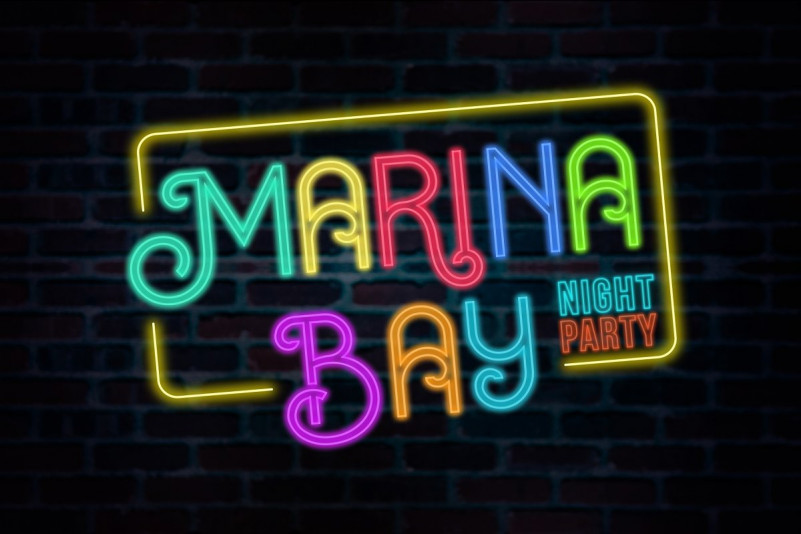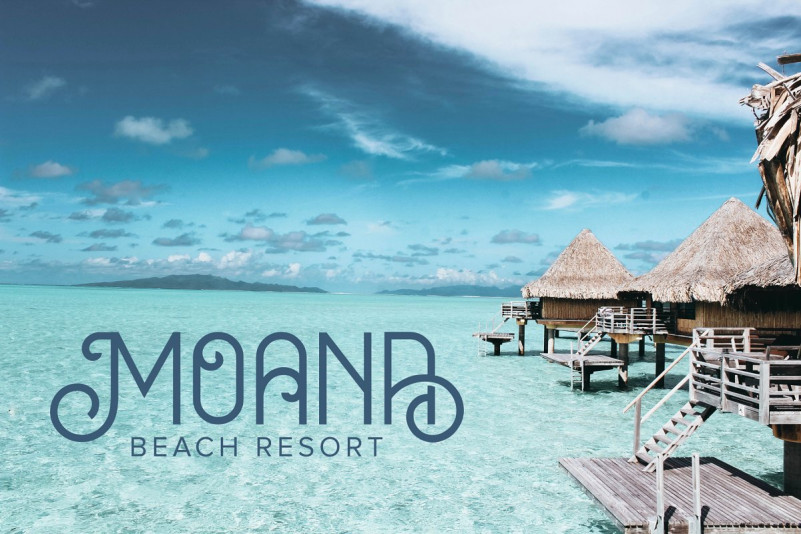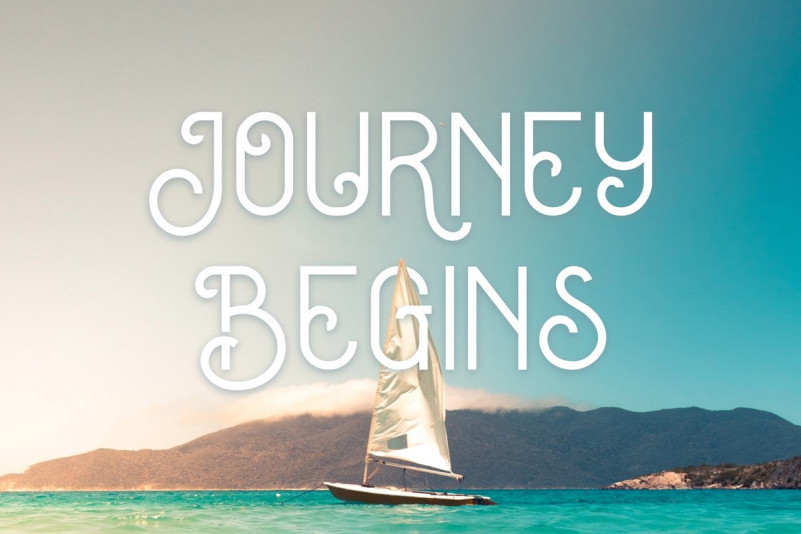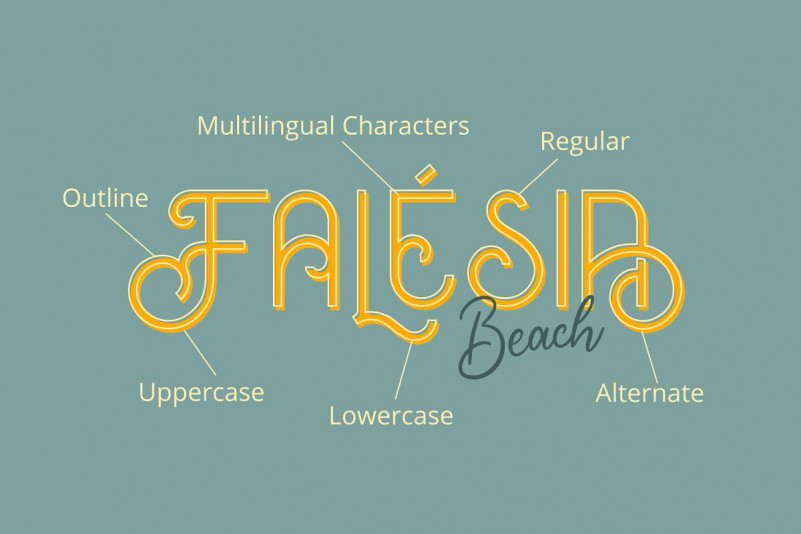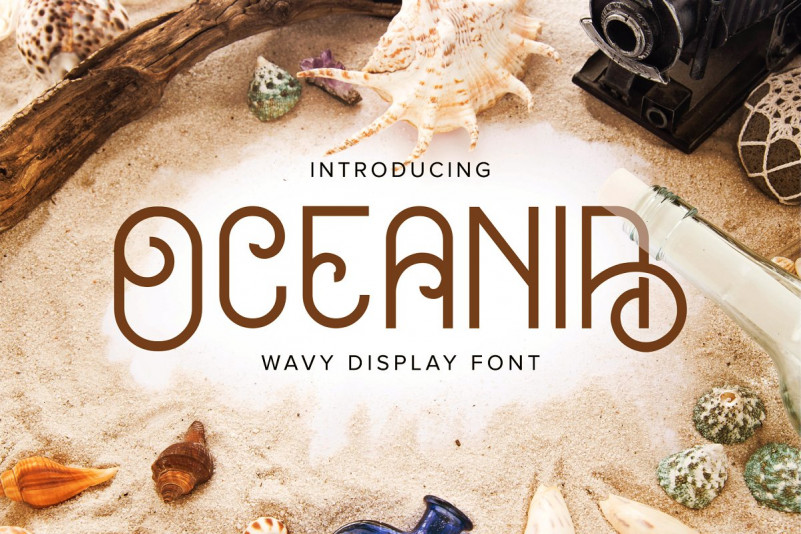
Oceania Display Font
Say hello to Oceania Font. A wavy dispaly typeface. This display type is ideal for branding and decorates​ your any project. I think it combines all these qualities. Simple and clear. It is designed and shared by LetterStuff Typefoundry. Oceania Display Font is unique display typeface with wavy dancing ocean wave. Bringing beach tropical freshness to your design. Suitable for your design need like headline, poster title, book cover, neon text, logo type, tshirt and so on